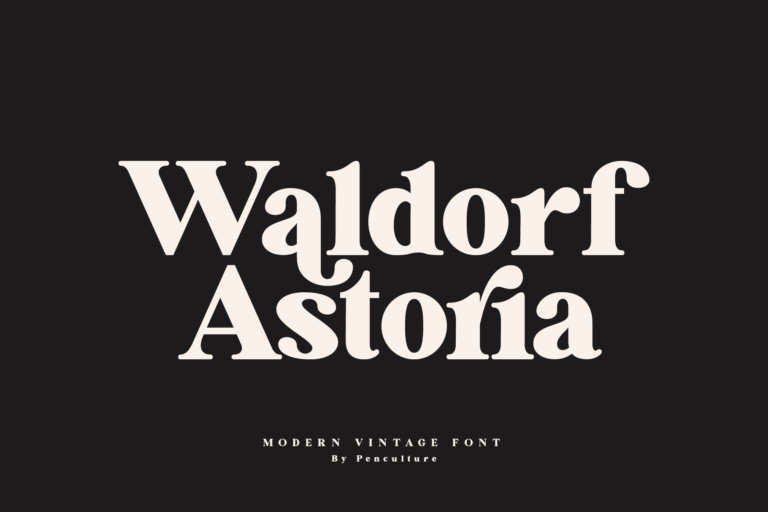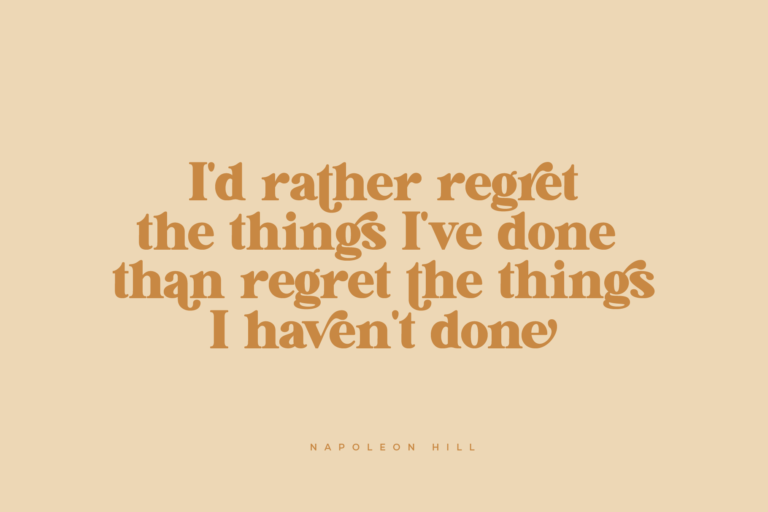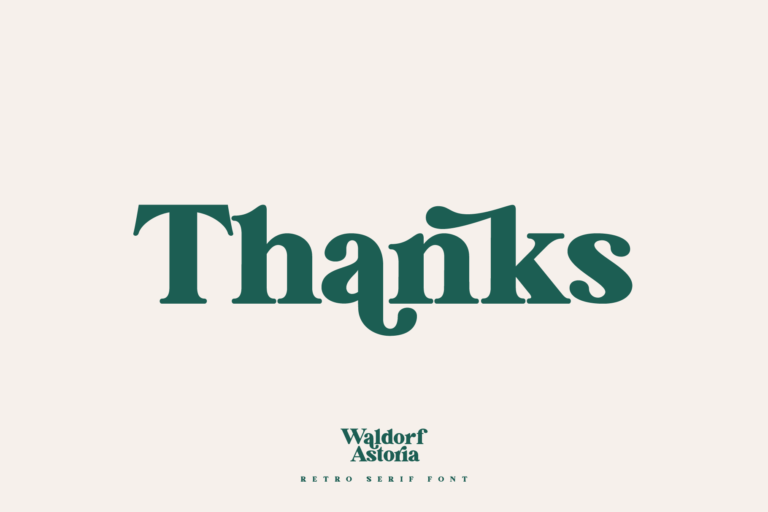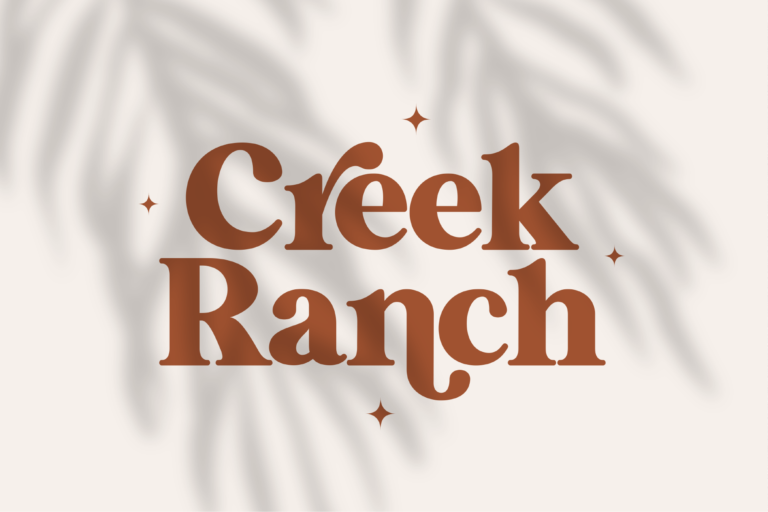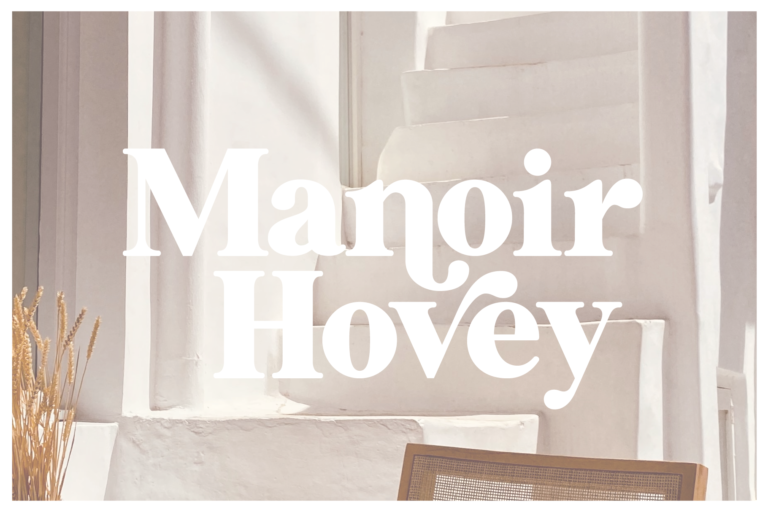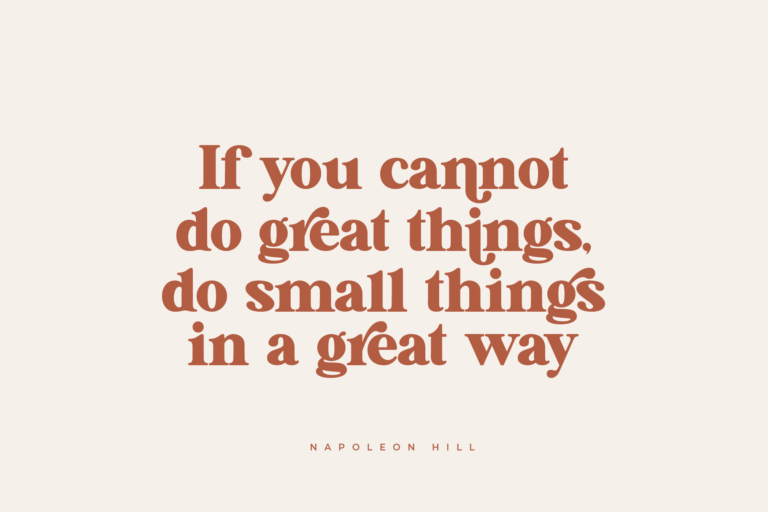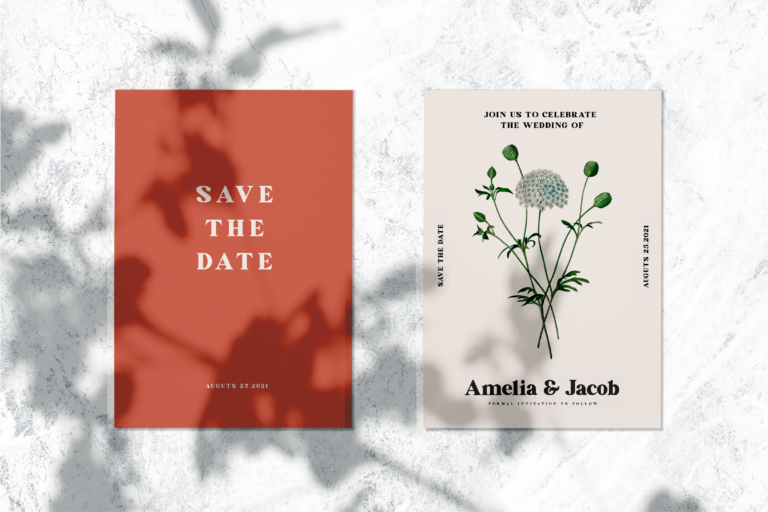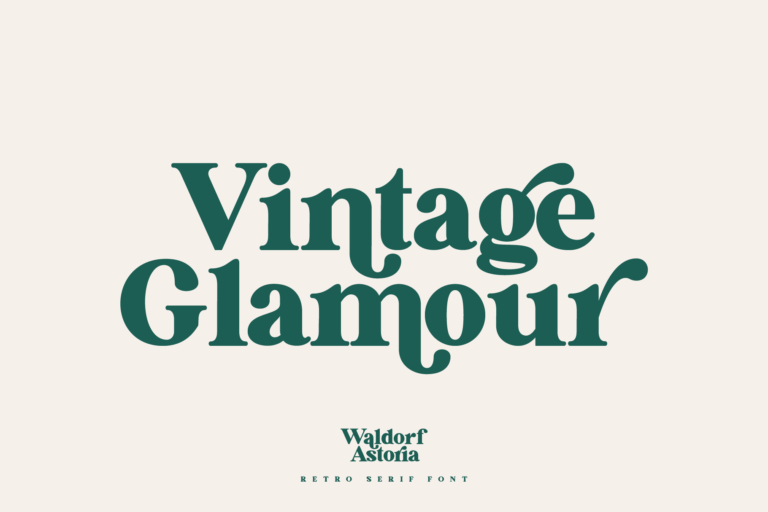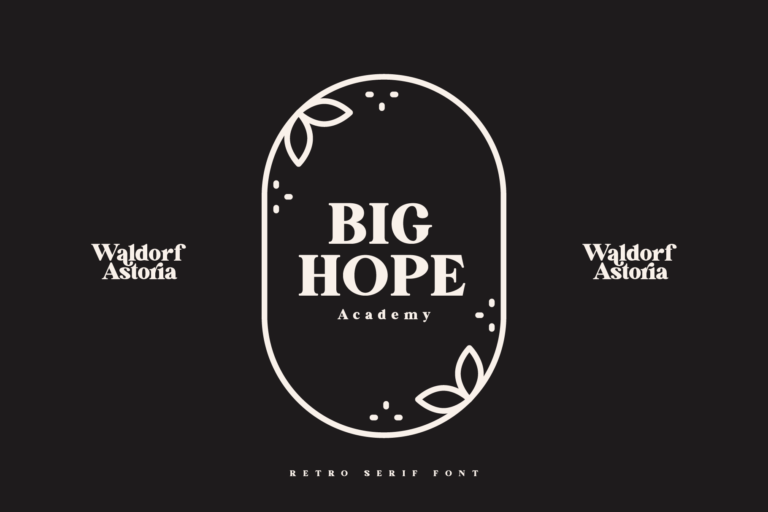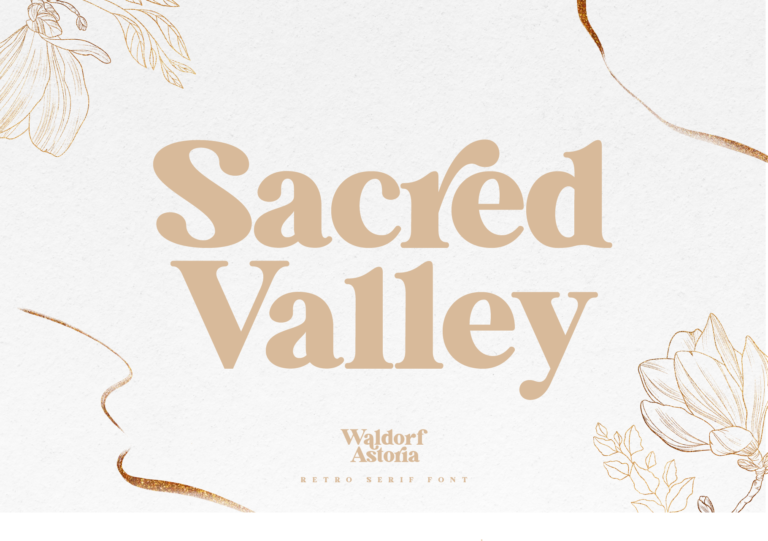
- Waldorf Astoria Modern Vintage Font
Introducing the new “Waldorf Astoria” modern vintage font
Waldorf Astoria is a is a modern serif with a vintage touch. With a combination of modern and vintage this font will be suitable for your design needs both for branding, logos, packaging, magazine imagery, posters, wedding invitations, advertising, as well as other modern or vintage projects.
- Outstanding uppercase and lowercase
- Awesome ligature and alternate